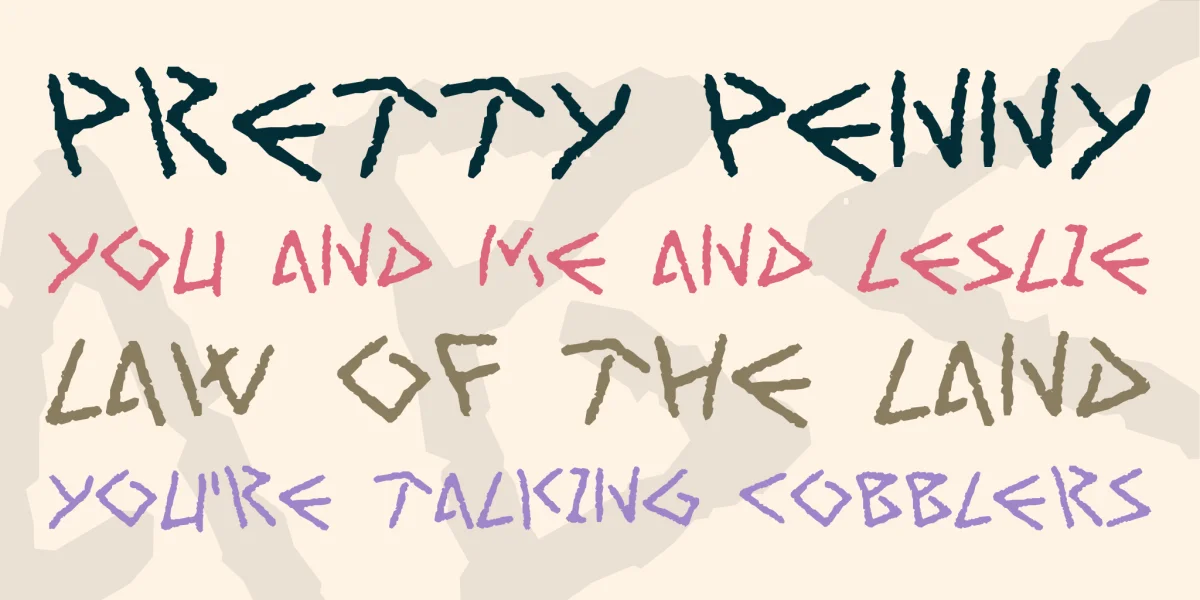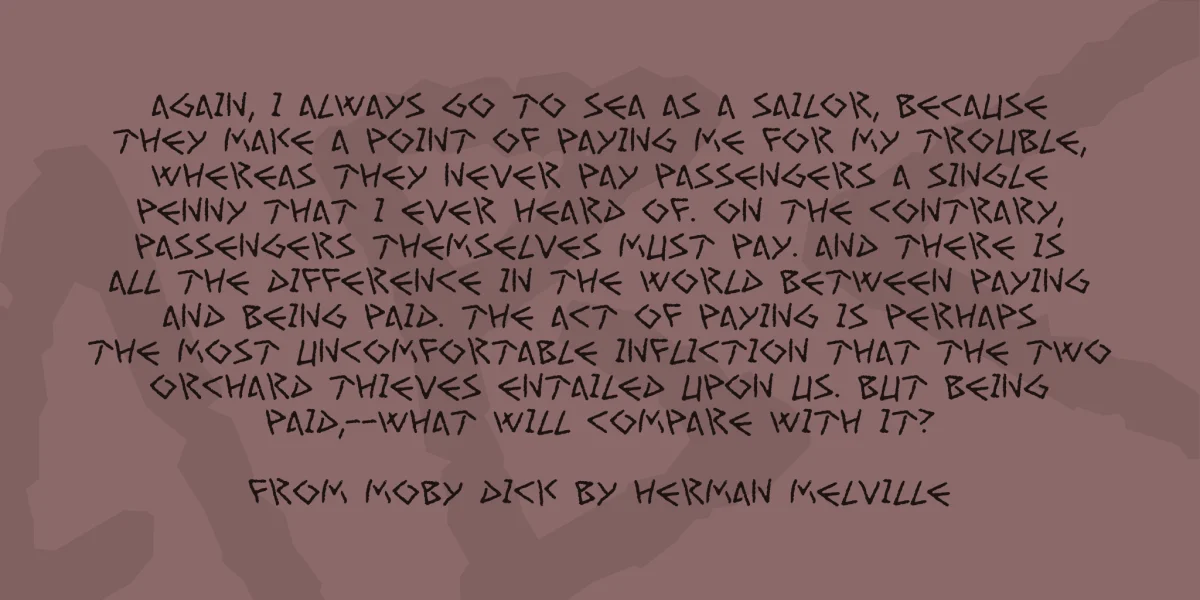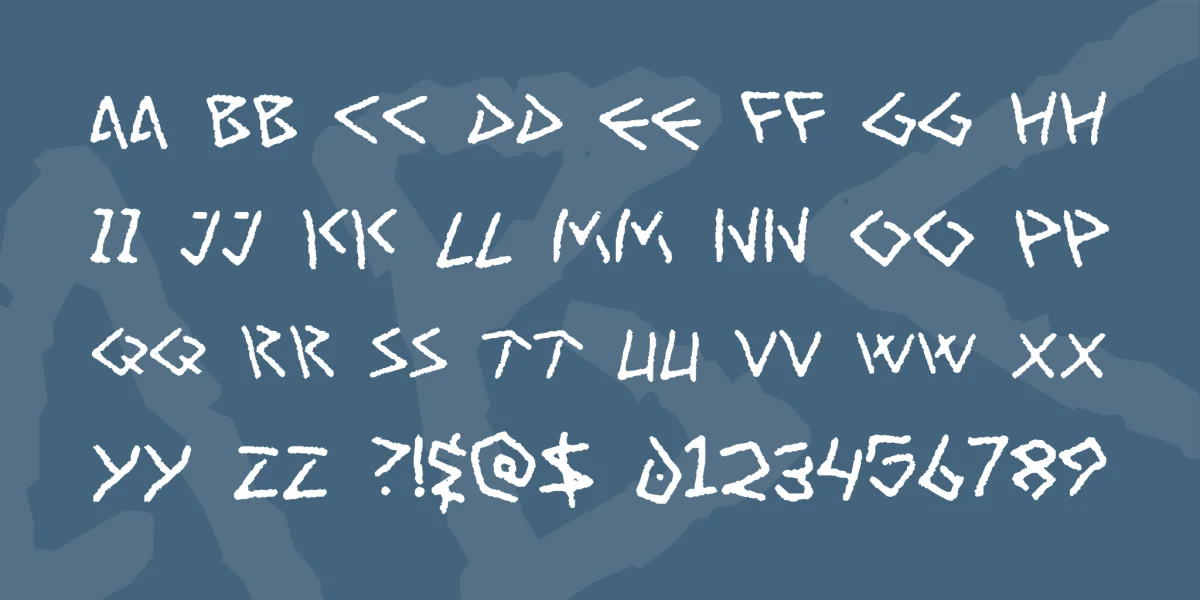
We've been moving into a new apartment over the last couple of days, so the regular computer is still boxed and life is a little chaotic. That's pretty much the whole story behind this all-caps font, assembled from a folder of doodles and experiments that I dip into on just such an occasion. It's a messy-souvlaki kind of font.